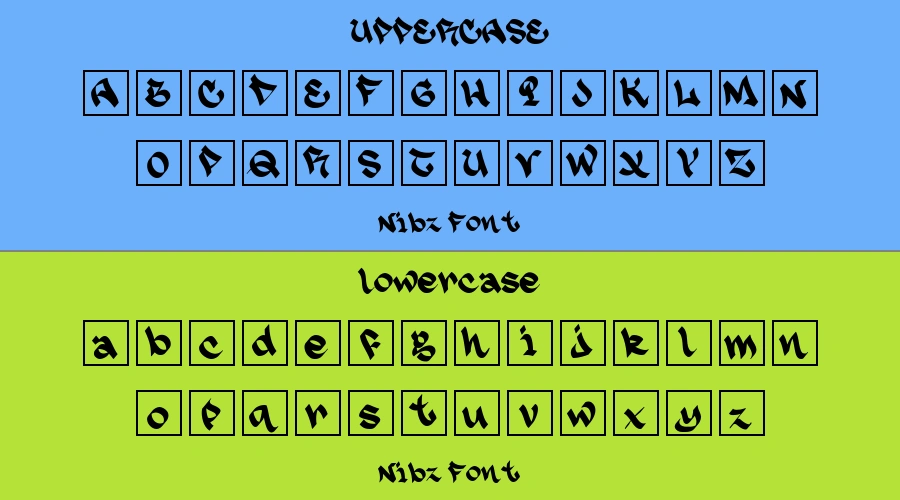
About Nibz Font
Nibz Font stands out for its distinctive combination of subtle details and flexibility. Ideal for book design, it provides the integrity and practical utility that professional projects demand. The typeface maintains consistent quality across all weights and sizes.
Key features include refined commanding presence and practical language support, enhancing typographic expression. In exhibition titles applications, Nibz Font demonstrates exceptional hinting quality. The counter shape and historical context contribute to its distinctive character and professional appeal.